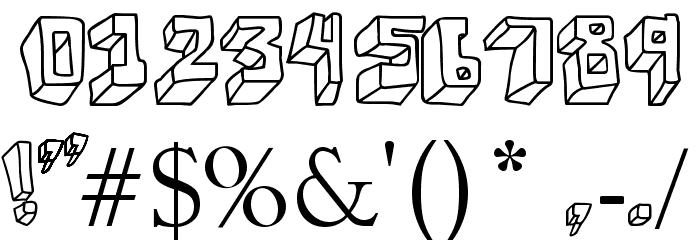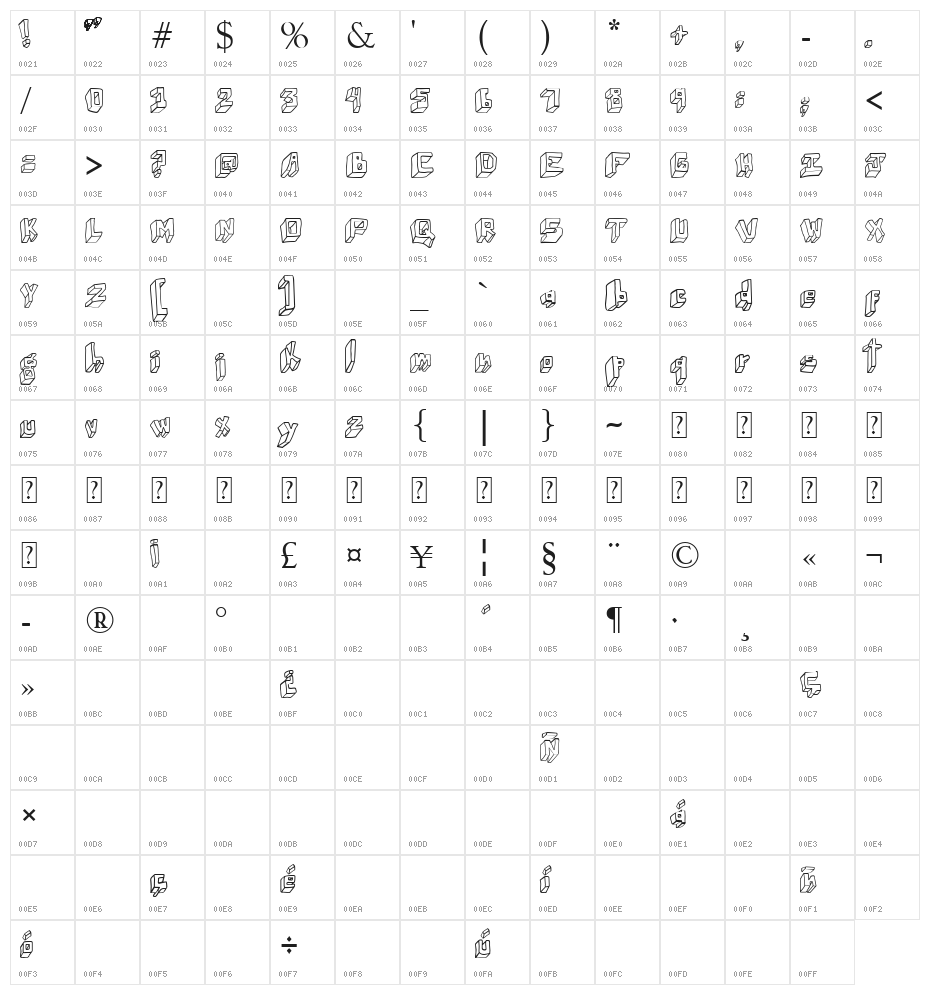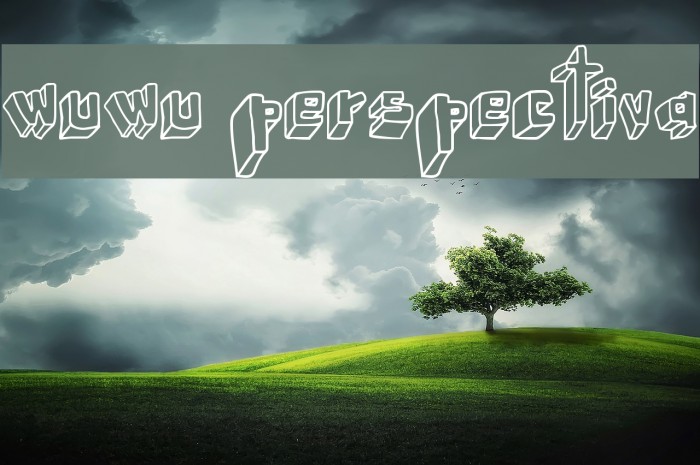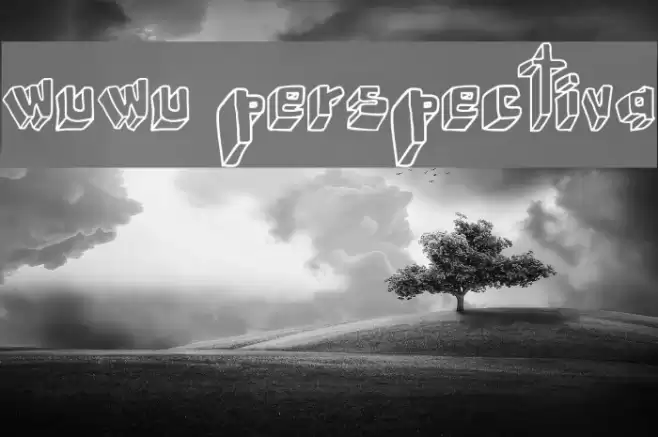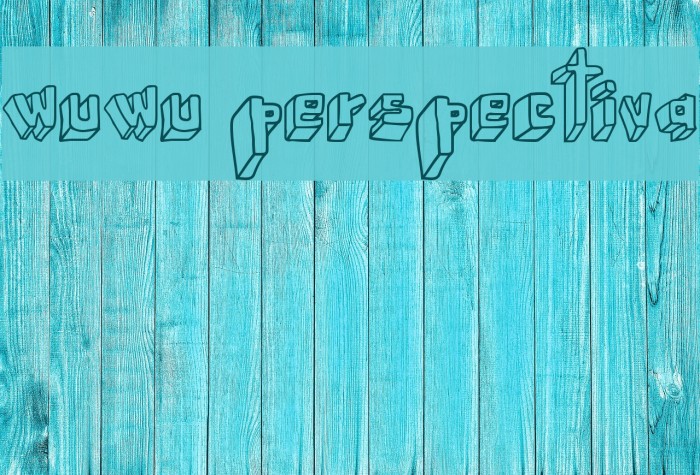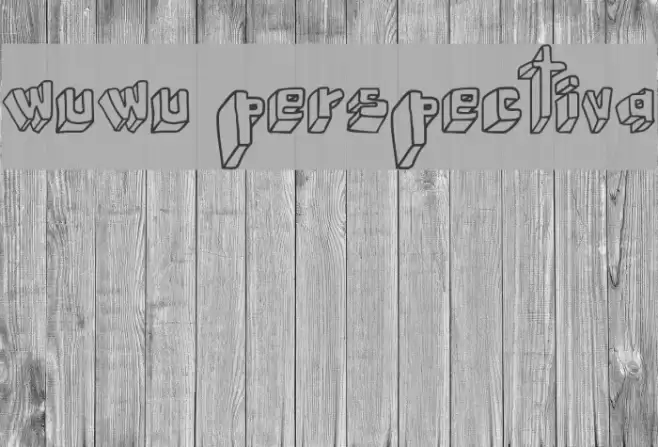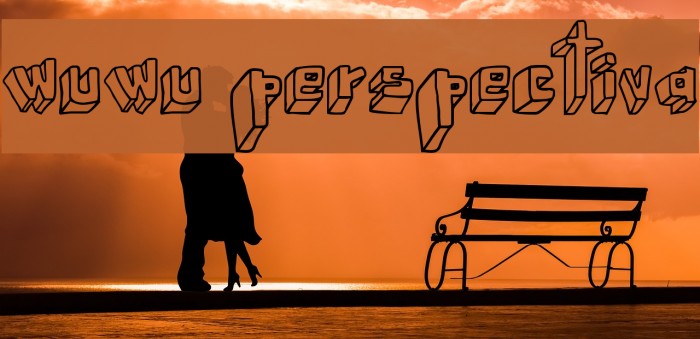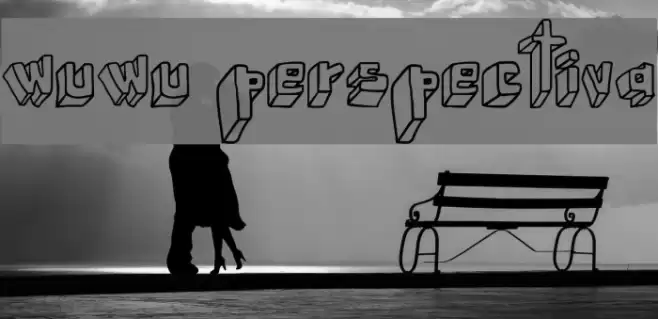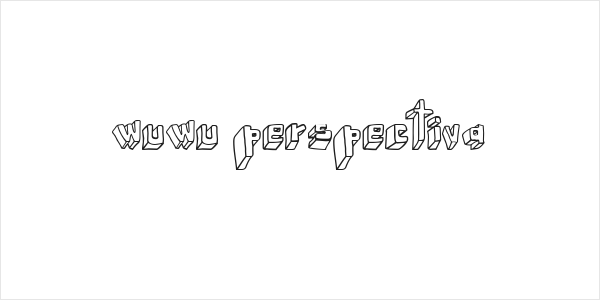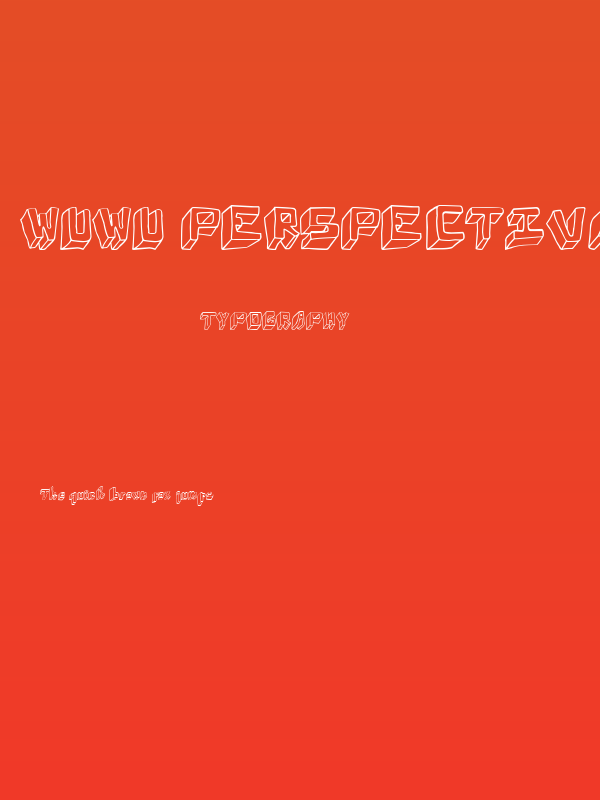
wuwu perspectiva Font
wuwu perspectiva Description
This font features a bold, three-dimensional design with a hand-drawn aesthetic. Each character is outlined with a thick black line, creating a striking visual effect that gives the impression of depth and perspective. The letters are angular and geometric, with sharp edges and a playful, cartoon-like style. The uppercase and lowercase letters maintain a consistent design, while the numbers and special characters complement the overall look. This font is ideal for projects that require a fun and dynamic appearance, such as posters, comic book titles, or children's book covers.
| Overall Style | Playful, Cartoon-like, Dynamic |
| Proposed Projects | Ideal for posters, comic book titles, children's book covers, and playful branding. |